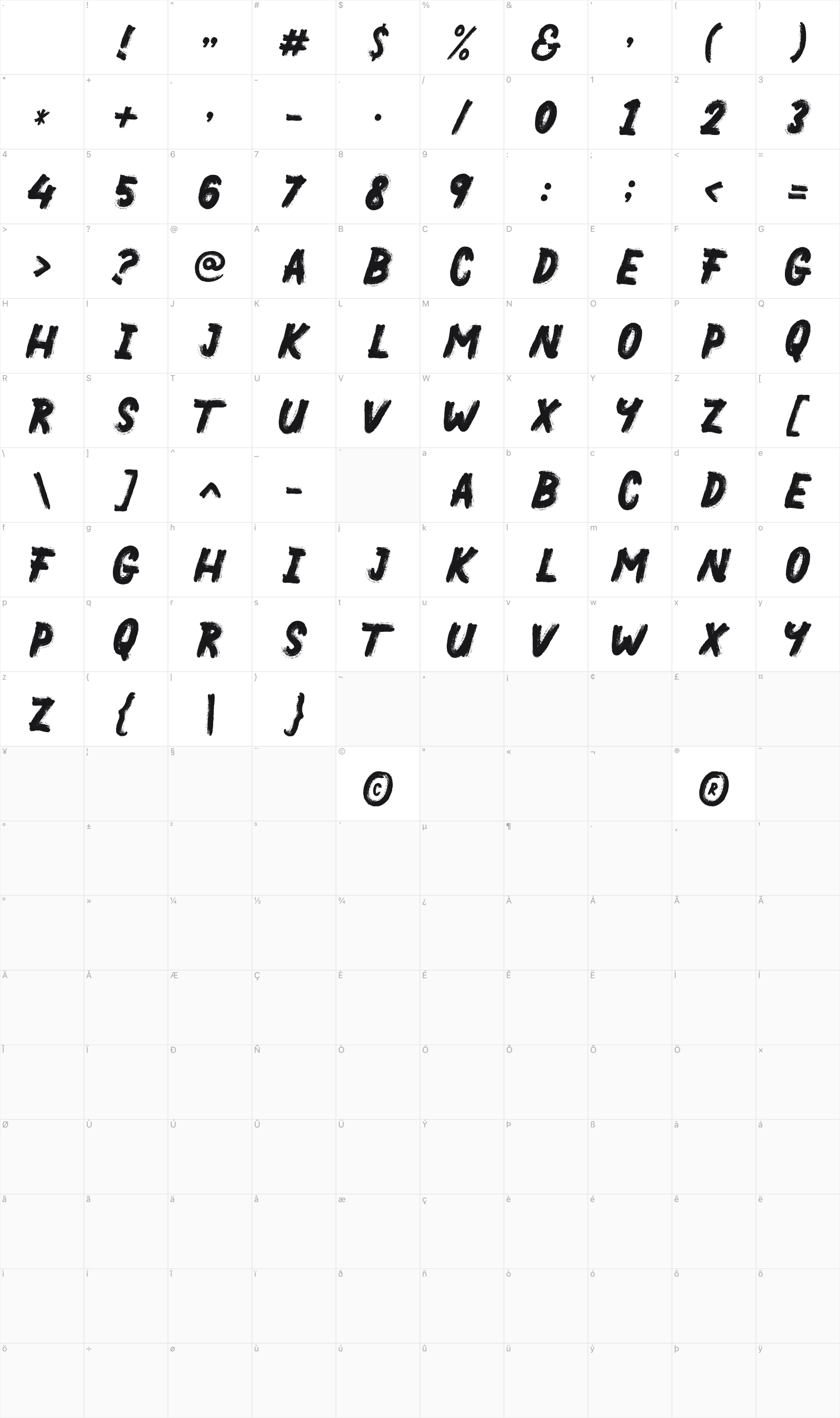
Thank You Kobe
Thank You Kobe is a heavy brush script with a bold italic slant and raw, bristle-textured strokes that feel hand-painted at speed. The rough ink drag and tight condensed proportions give it an urgent, street-level energy. It works best large, where the texture reads as expressive grit rather than noise.